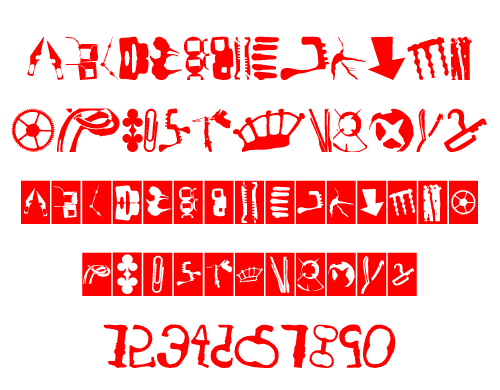
Organica, Maria Johansson.
Organica was created in the spirit of organic shapes. Some letter
forms might appear to be geometric, but a closer look shows that the
mathematical calculation of the composition of organic shapes make
them look perfect to the human eye. This is a part of sacred geometry
and can be applied in arts more or less to perfection. Harmony in
art works can be achieved with hierarchy of elements and forms. Organica
is based on this idea in an attempt to create attractive letter forms
used separately as well as together.